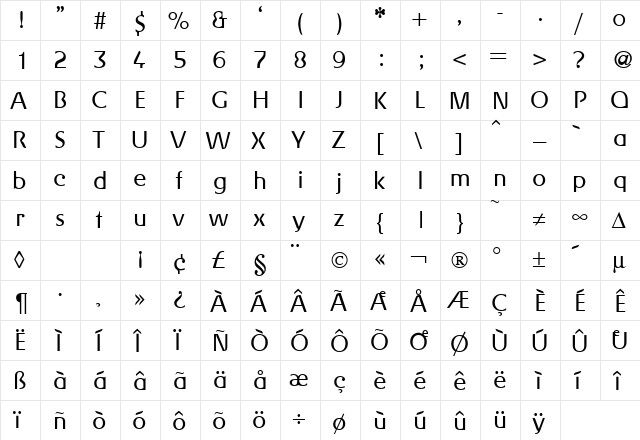
GerlingLight Regular
Design Context for GerlingLight Typeface
GerlingLight takes a measured approach to typography — its balanced proportions and neutral character make it a reliable workhorse for both digital and print work. The delicate stroke weight brings airiness and refinement to layouts.